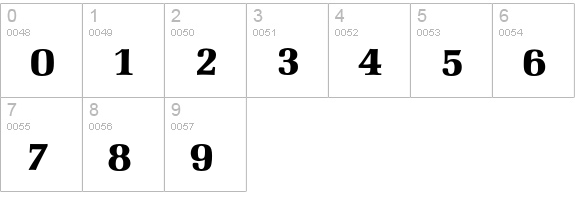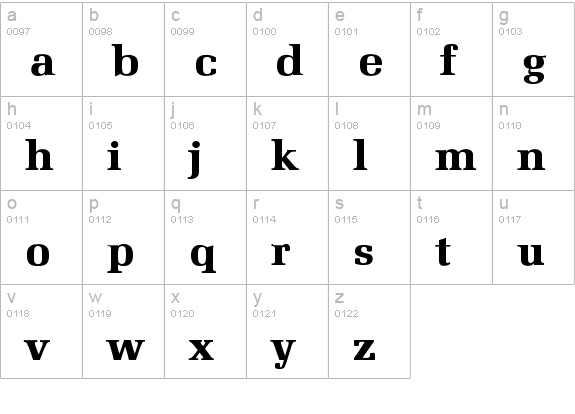
Marseille-Bold is a strong, high-contrast variant in the Marseille typeface family \xE2\x80\x94 well suited to headlines, attention-grabbing titles, and strong calls-to-action.
Marseille-Bold is a modern and sleek typeface that exudes confidence and boldness. With its strong and prominent letterforms, this font commands attention and makes a powerful statement in any design project. The thick strokes and sharp angles of Marseille-Bold create a sense of strength and stability, making it perfect for headlines, logos, and branding materials. What sets Marseille-Bold apart is not only its exceptional design, but also the fact that it is available for free. Yes, you read that right! Marseille-Bold can be freely downloaded from FontsMarket.com, allowing designers and creatives alike to access this incredible font without any cost. This makes it an ideal choice for those on a budget or anyone looking to experiment with a high-quality typeface without breaking the bank. The versatility of Marseille-Bold is another reason to love this font. It effortlessly adapts to various design styles, whether it be for print or digital media. Its clean and legible appearance ensures that your message is conveyed effectively, while its distinct personality adds a touch of uniqueness to any project. With its generous x-height and well-balanced proportions, Marseille-Bold guarantees readability in both small and large sizes. Whether you need to create impactful headlines or emphasize important information, this font delivers with its commanding presence and clear, crisp lines. Marseille-Bold is a font that not only catches the eye but also leaves a lasting impression. Its bold and commanding nature will make your designs stand out from the crowd, while its flexibility ensures it can be used in a variety of projects. And the best part? It's free! So why wait? Download Marseille-Bold today from FontsMarket.com and elevate your designs to new heights.